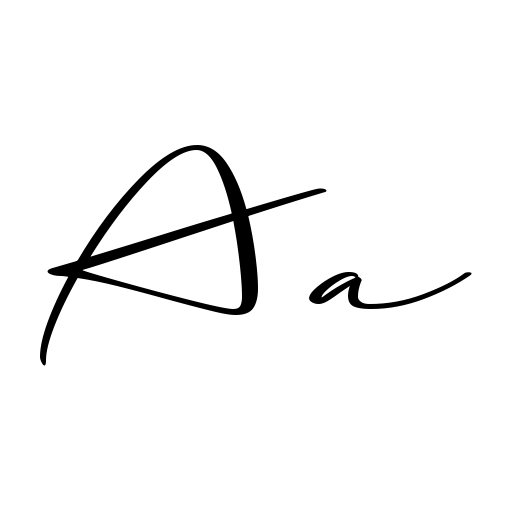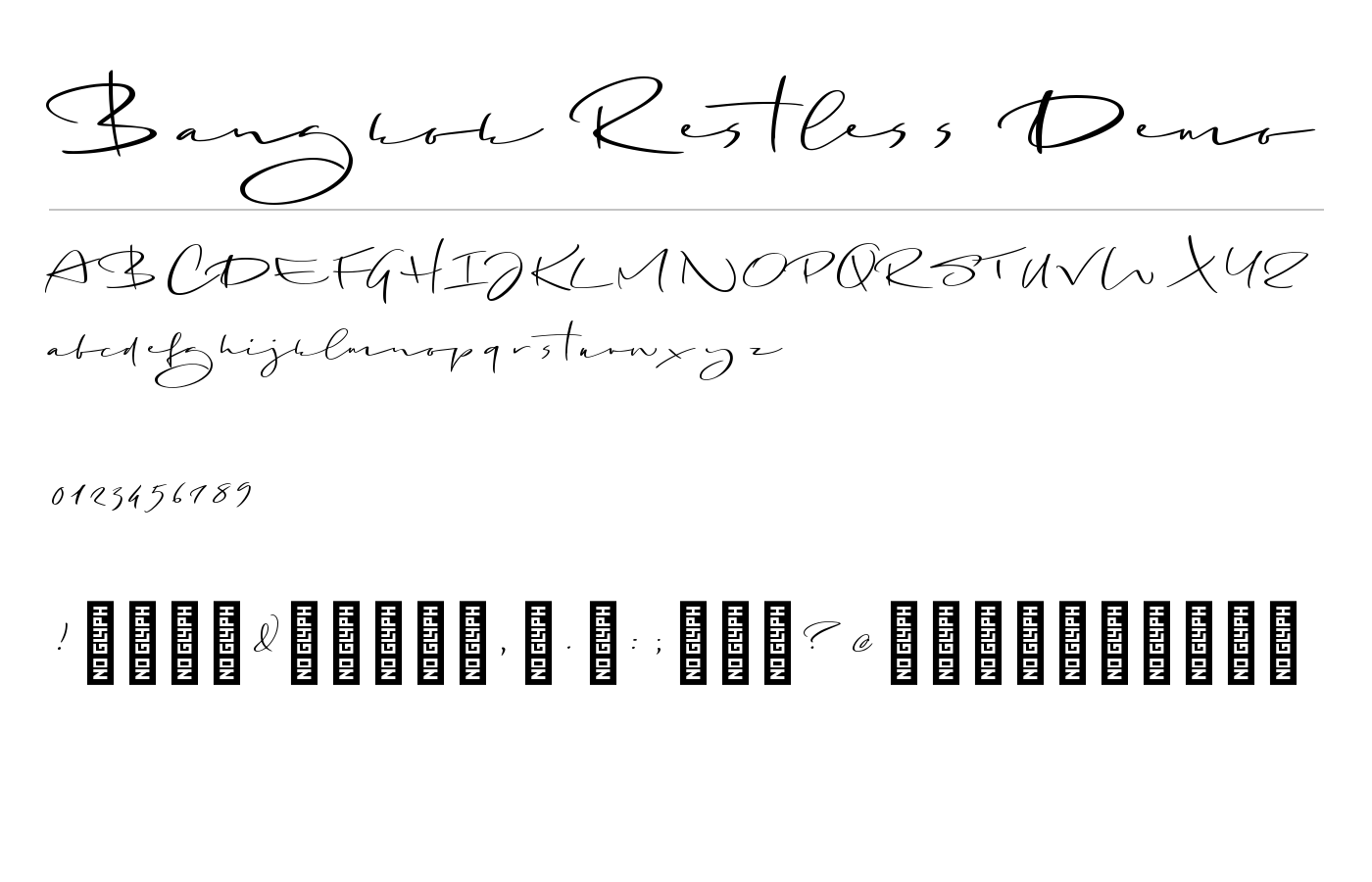
Bangkok Restless Demo is a delicate, handwritten script font with a light weight and elegant, flowing strokes that convey a sense of casual sophistication. Its tall, narrow letterforms with subtle variations in stroke thickness give it a modern yet personal feel, making it ideal for creative projects like invitations, branding, and stylish editorial accents where a refined, artistic touch is desired.
Bangkok Restless Demo Font
About Bangkok Restless Demo Font